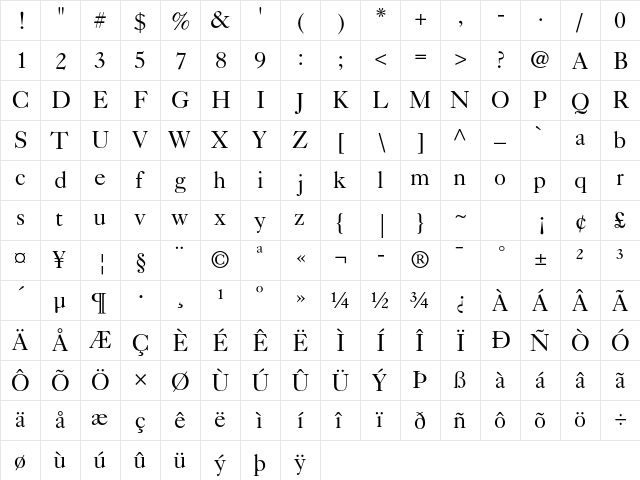
Caslon 540 LT Std Roman
| Designer | American Type Founders Staff |
Design Context for Caslon 540 LT Std Typeface
Caslon 540 LT Std takes a measured approach to typography — its balanced proportions and neutral character make it a reliable workhorse for both digital and print work. The delicate stroke weight brings airiness and refinement to layouts.